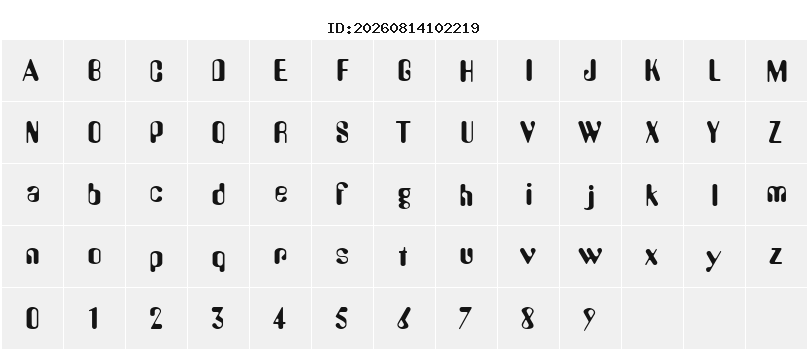
Submarine Preview
• Font Name: Submarine
• Full Font Name: Submarine
About Submarine.ttf
Submarine.ttf is a modern, elegant sans-serif font designed for ultimate readability and visual harmony. Perfect for branding, headlines, web design, and print materials.